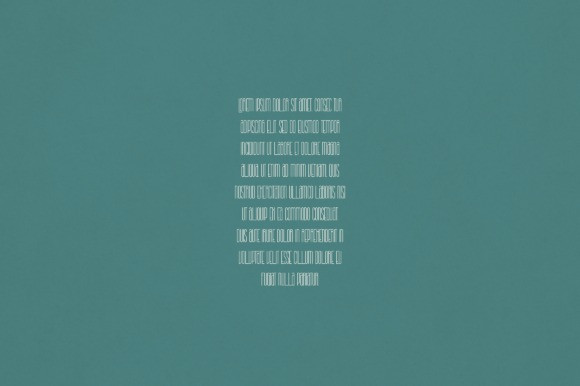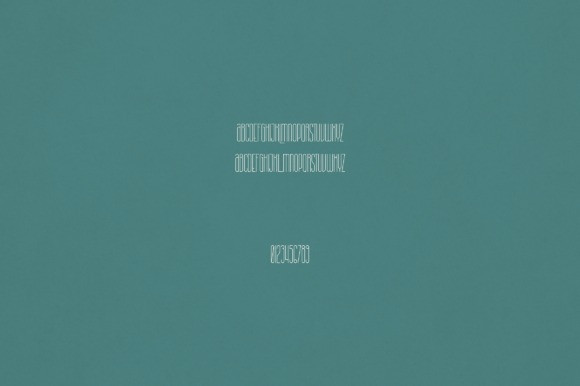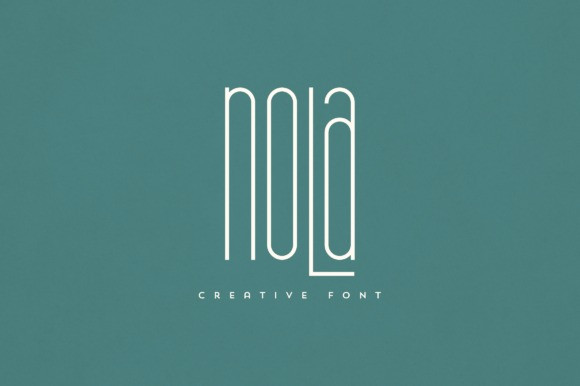
Nola Font
Nola Font is an elegant and versatile font display that will make your typography truly unique! It will enchant every logo, branding, headline, or plain text!